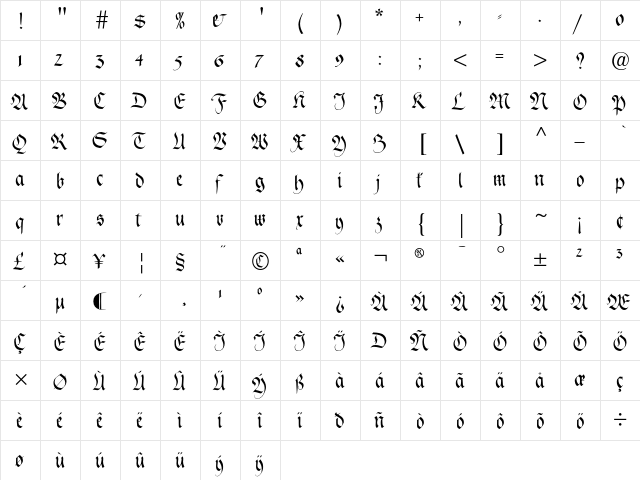
FederFrakturEF Regular
Design Context for FederFrakturEF Typeface
FederFrakturEF channels the dramatic heritage of Fraktur and Gothic scripts, bringing a sense of historical gravitas to any design.
A natural fit for music packaging, gothic editorial design, and any project that needs historical weight.
Font Pairing: Pair with a clean neutral sans-serif for body copy to let FederFrakturEF's character lead without overwhelming the composition.
Pro Tip: Reserve FederFrakturEF for display and logo use — pair it with a clean sans-serif for body copy to prevent the composition from feeling oppressive.